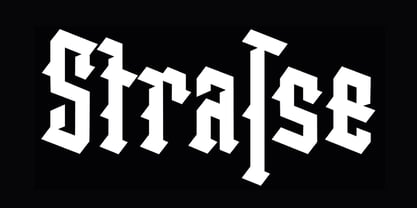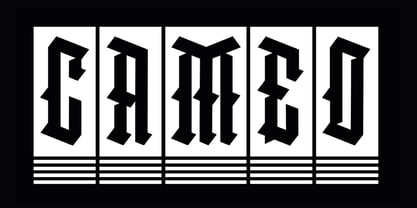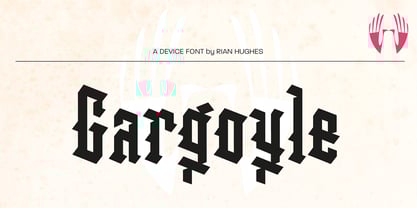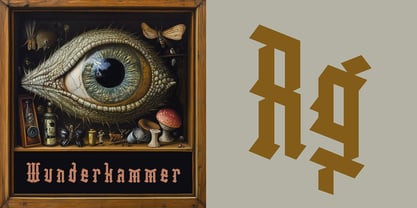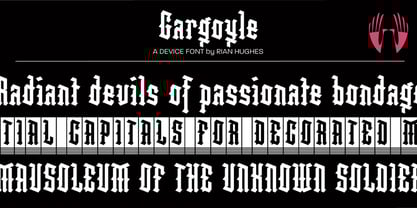
Gargoyle
The Gargoyle Font Family was designed by Rian Hughes and published by Device. Gargoyle contains 3 styles and family package options.
Gargoyle is based on an unused proposal for a Batman logo for DC Comics’ 1997 Tangent mini-series, and was later developed into a full font including lower case and additional detailing. Informed by the calligraphic flat-pen origins of gothic Blackletter styles, here the stroke angle is freely flipped – for example, on characters like the M, V and the dots on the lower-case i and j – in ways that a strict blackletter would avoid. A cameo version is intended for use as drop capitals.